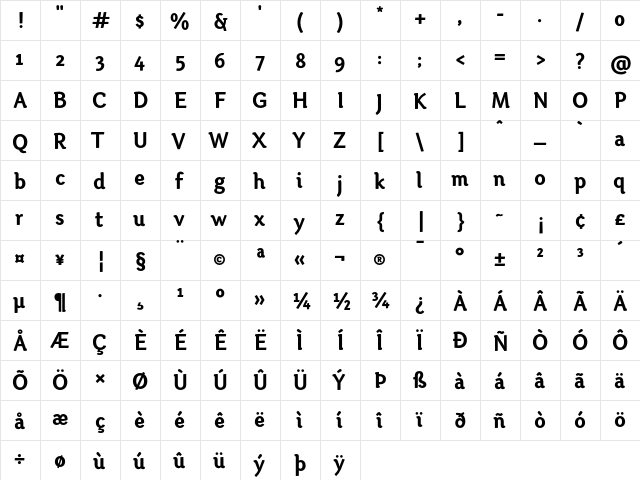
Otari Bold-Limited
| Foundry | Travis Kochel |
| Designer | Travis Kochel |
Design Context for Otari Typeface
Otari offers clean, dependable letterforms without strong stylistic allegiance, making it a practical choice for designers who need flexibility. Its bold stroke weight gives it real presence on the page.
Pro Tip: Use Otari in both headline and body roles to test its range before committing to a single application.